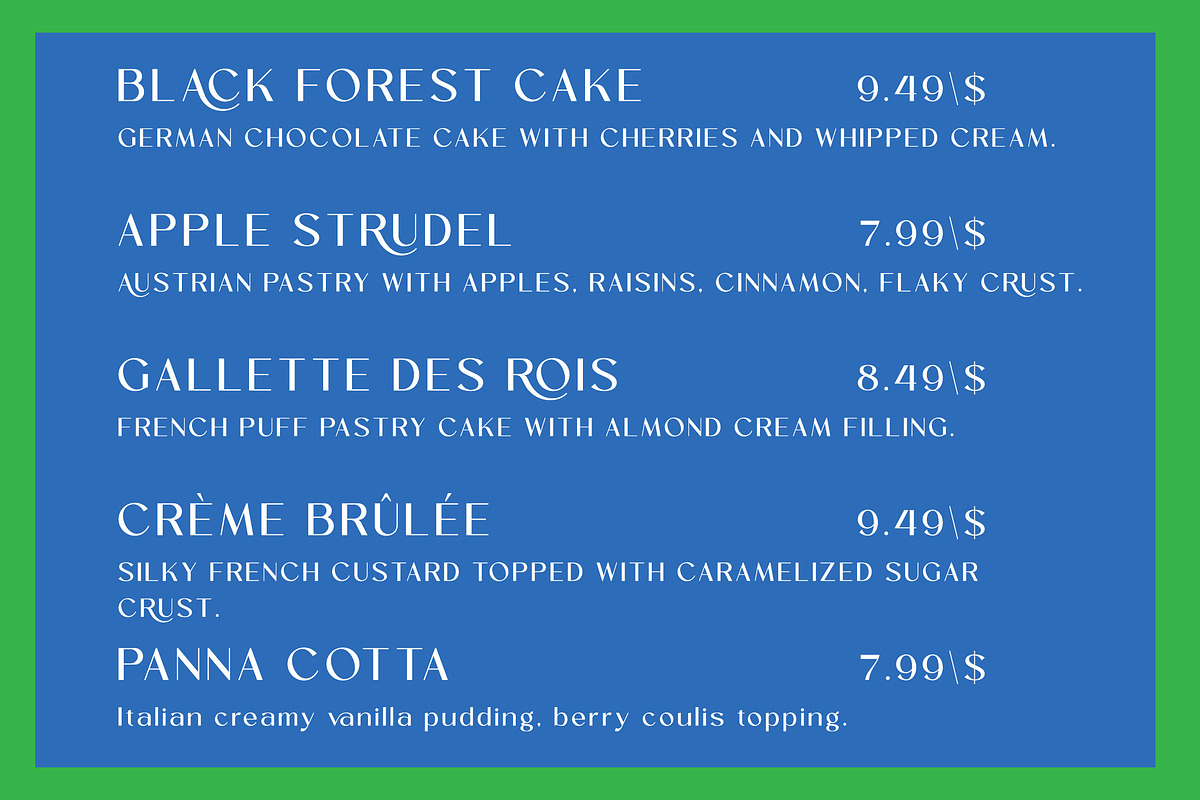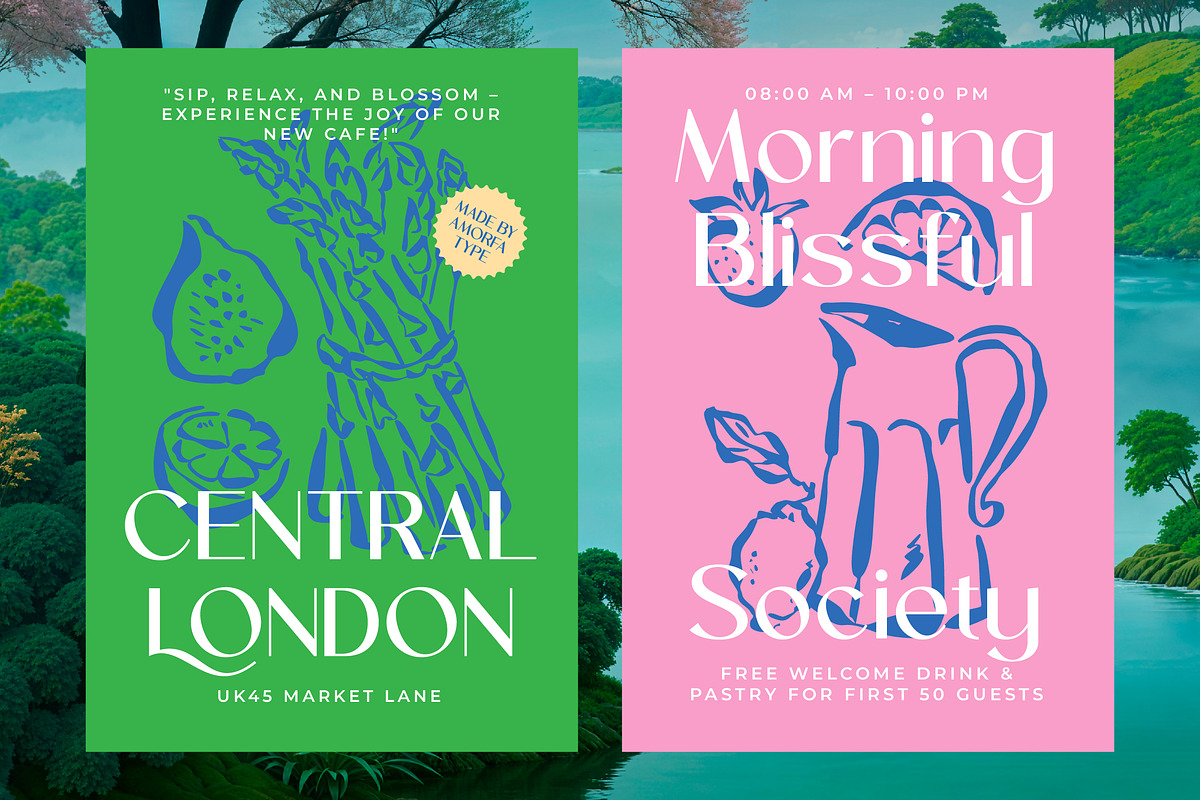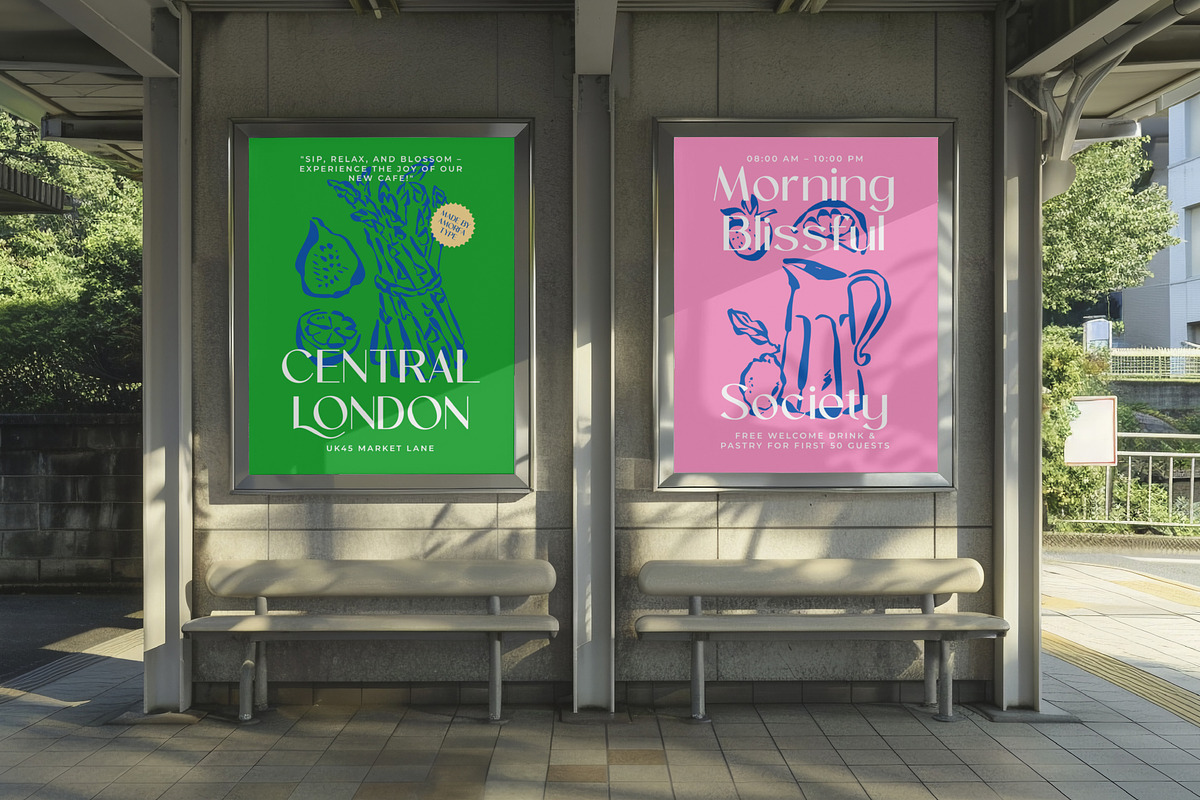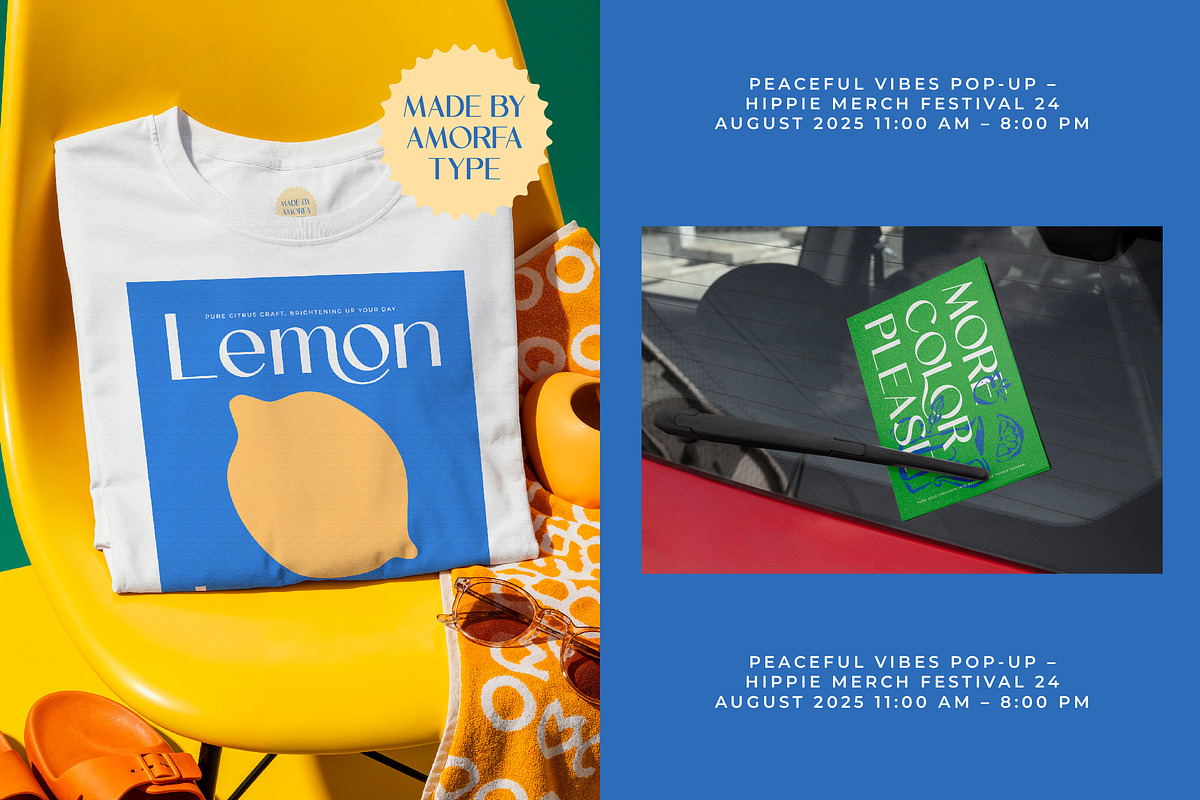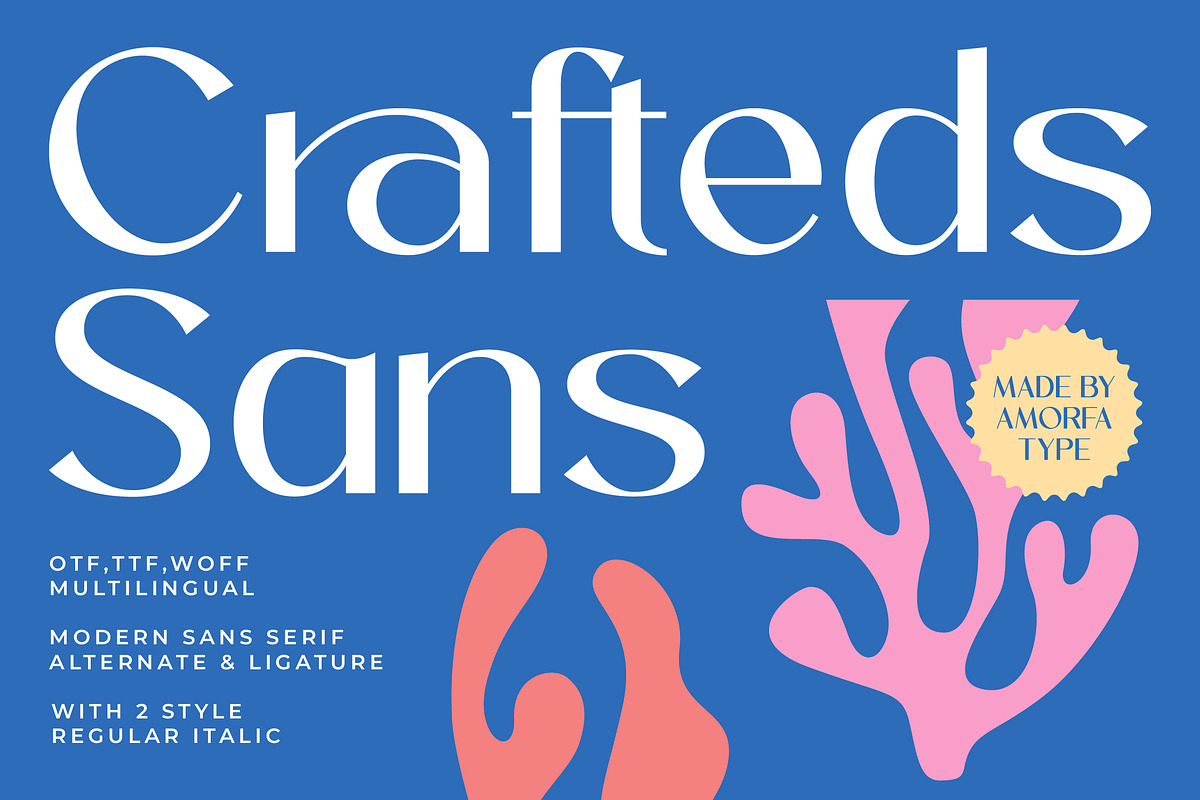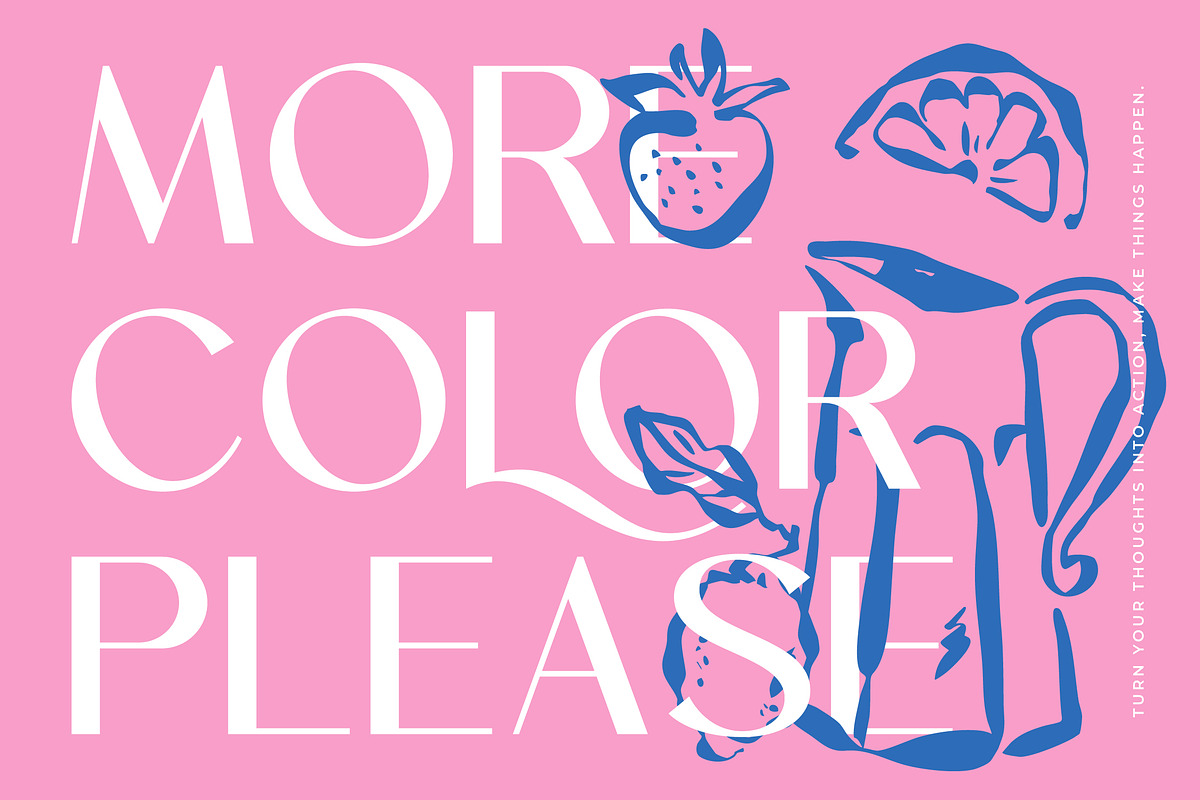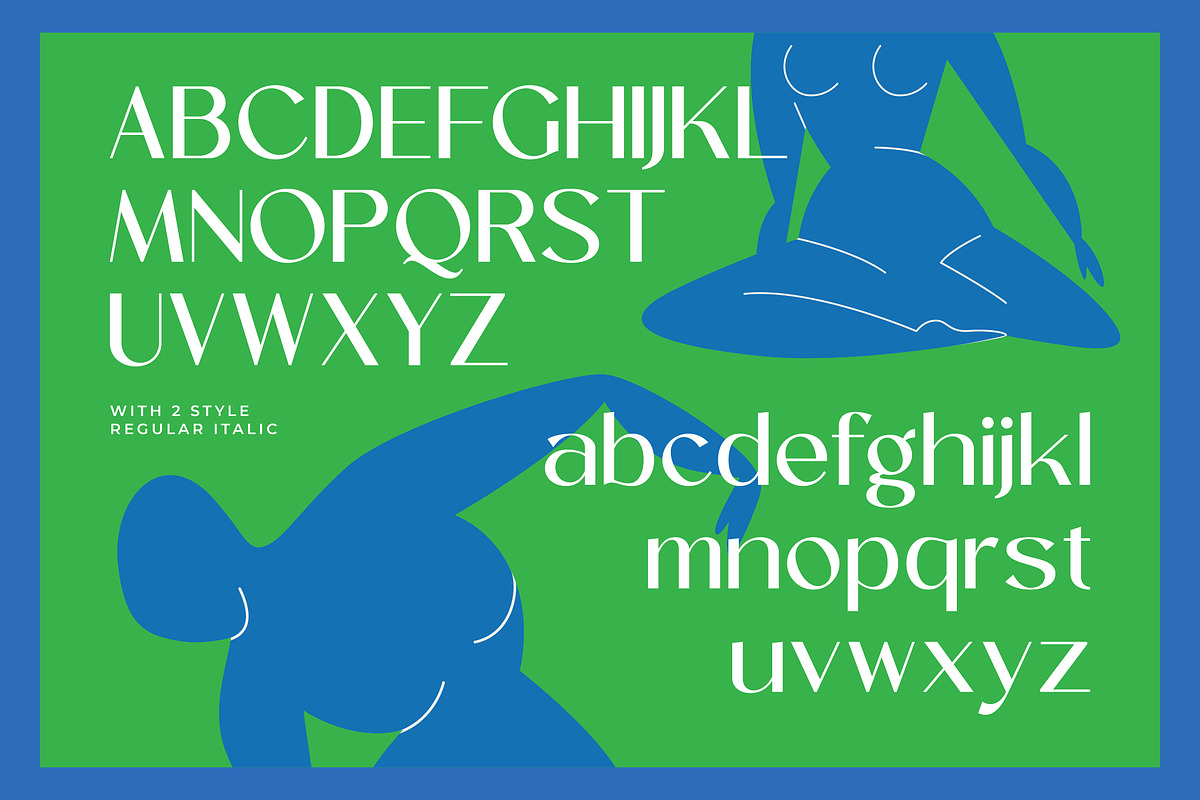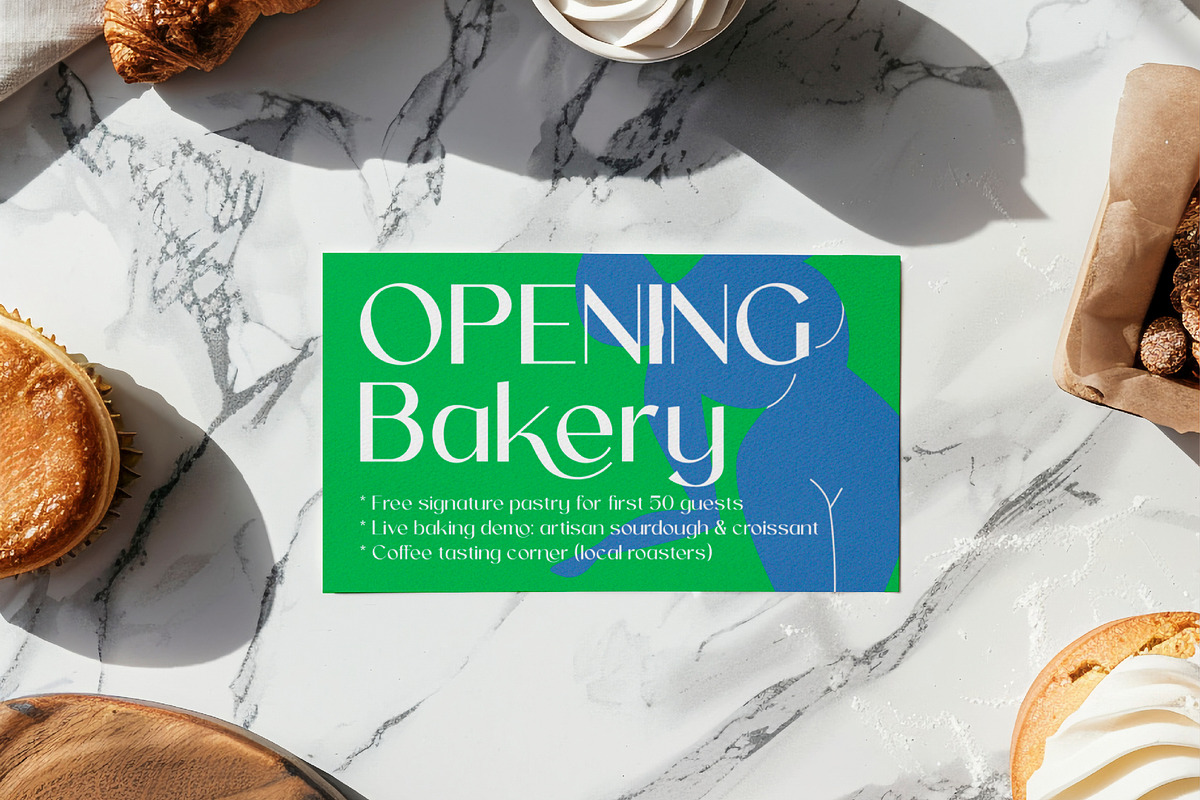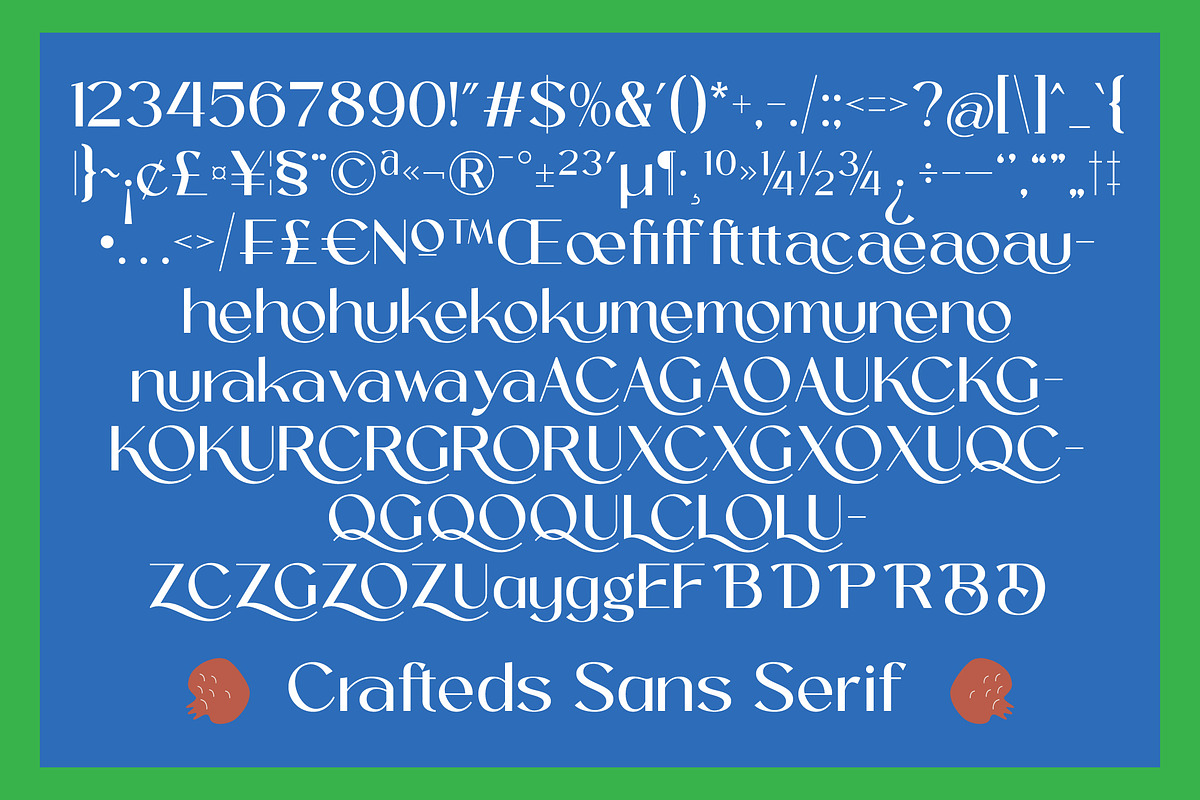
Crafteds A Modern Sans Serif
Crafteds – A Modern Sans Serif Font by Amorfatype
Crafteds is a sleek modern sans serif font that embodies minimalism, clarity, and contemporary finesse. With its clean lines, balanced geometry, and subtle curves, Crafteds offers a refined yet approachable aesthetic perfect for modern design needs. This font delivers professionalism and simplicity in equal measure, making it an excellent choice for branding, editorial design, UI/UX, and visual identities.
Thoughtfully designed for versatility, Crafteds excels in a wide variety of applications — from elegant website headers and sharp app interfaces to stylish packaging and forward-thinking corporate materials. Every character has been carefully crafted to ensure optimal readability without sacrificing personality, blending the timeless principles of sans serif design with a modern, humanist touch. Crafteds brings a sense of clarity, efficiency, and contemporary charm to any project.